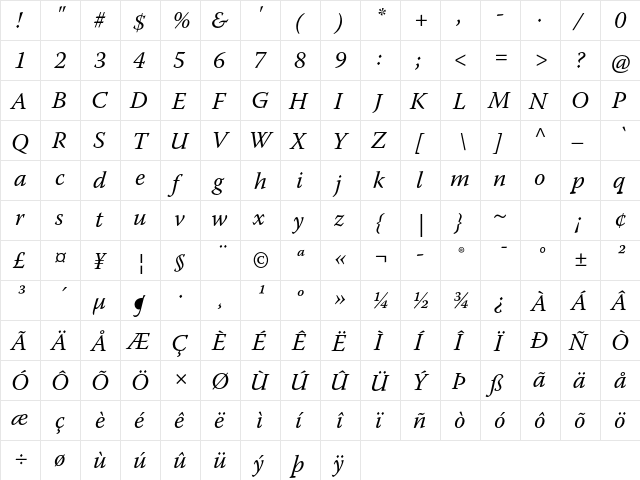
Warnock Pro Italic
| Designer | Robert Slimbach |
Design Context for Warnock Pro Typeface
Warnock Pro is a composed and adaptable typeface that performs quietly and consistently across a wide range of design contexts. The dynamic lean of this cut emphasises speed and emphasis in any layout.
Pro Tip: Try Warnock Pro for annotation and caption copy alongside an upright companion — the contrast in angle creates a dynamic but ordered typographic system.